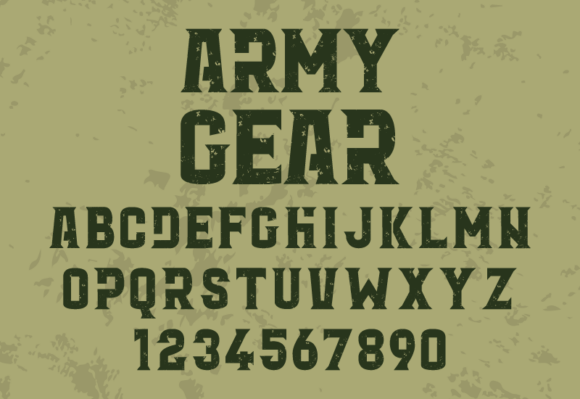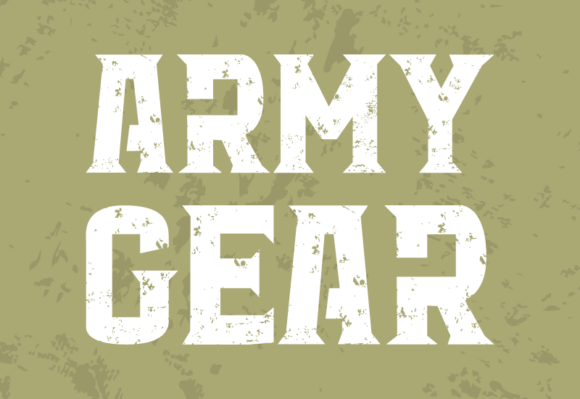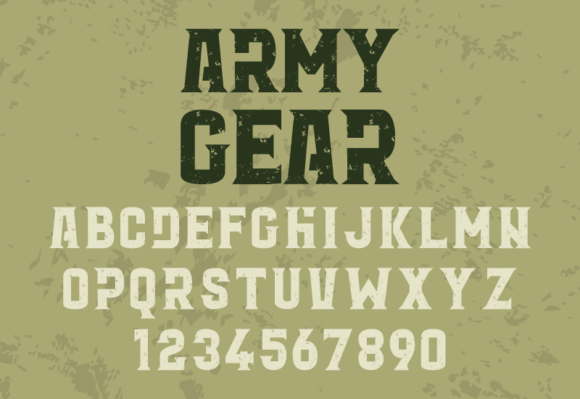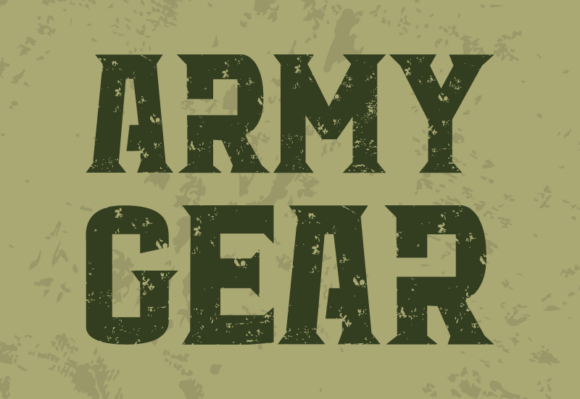
Discover the Bold and Fearless World of Army Gear Font
I’ll never forget the design project that led me to the Army Gear font. I was working on a branding campaign for a outdoor gear company, and I needed a font that could convey a sense of ruggedness and adventure. After hours of searching, I stumbled upon Army Gear, and it was love at first sight. The bold lines, the war game texture, and the military flair all came together to create a truly unique aesthetic.
A Personal Review of Army Gear Font
- ✨ Bold and attention-grabbing: Army Gear font is not for the faint of heart. It’s a statement-maker, and it’s perfect for designs that need to stand out.
- ✅ Versatile: Despite its bold personality, Army Gear font can be used for a variety of design projects, from logos and branding to posters and packaging.
- 💯 Unique texture: The war game texture and military flair give Army Gear font a distinctive look that’s hard to find in other fonts.
While Army Gear font is an amazing addition to any design project, there are a few things to keep in mind:
- 🤔 Legibility at small sizes: Army Gear font can be a bit tricky to read at small sizes, so it’s best to use it for headlines or titles rather than body text.
- ⚠️ Limited OpenType features: While Army Gear font does have some OpenType features, it’s not as extensive as some other fonts on the market.
The Backstory of Army Gear Font
Army Gear font was designed with the intention of capturing the bold and fearless spirit of the military. The designer, inspired by the textures and typography of war games and military equipment, created a font that’s both rugged and refined. The result is a font that’s perfect for designers who want to add a touch of edginess to their projects.
| What is the best use for Army Gear font? | Army Gear font is perfect for designs that need a bold and attention-grabbing font, such as logos, branding, and posters. |
| Is Army Gear font suitable for body text? | No, Army Gear font is best used for headlines or titles rather than body text, as it can be tricky to read at small sizes. |
| Is Army Gear font available in different weights? | Yes, Army Gear font comes in a range of weights, from light to bold. |